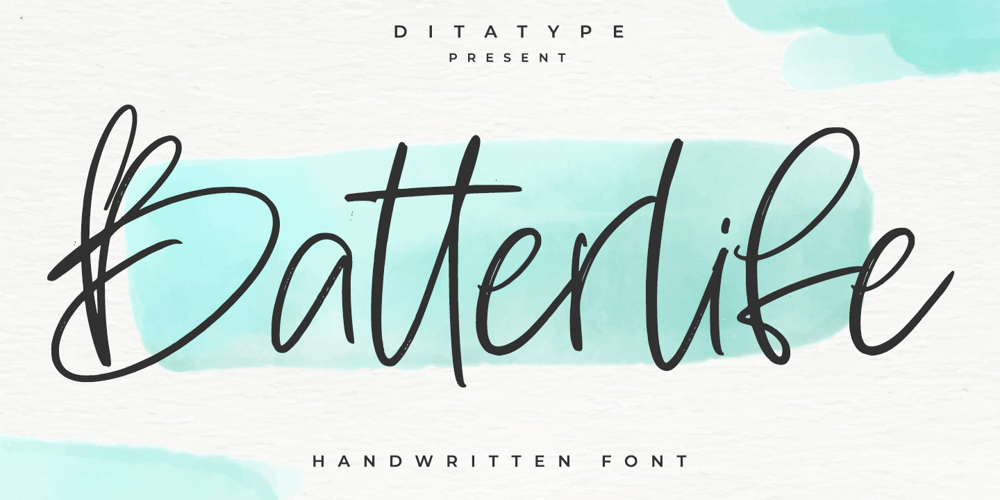
Batterlife
Batterlife font
Batterlife Font Family was designed by Donis Miftahudin and published by Ditatype. Batterlife contains 1 styles and family package options. Batterlife is a lovely handwritten font. Made for any professional project branding that need a modern and attractive typeface. It is the best for logos, branding and quotes. Every letter has a unique and beautiful touch.Includes:Batterlife (OTF)Features: Beautiful Ligatures Multilingual Support PUA Encoded Numerals and Punctuation